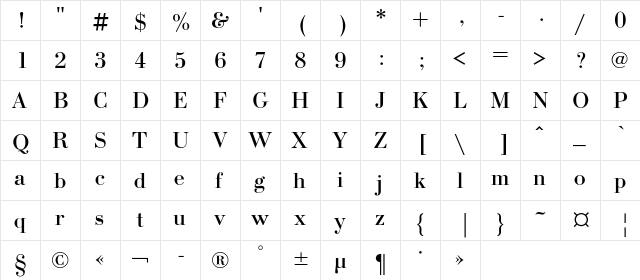
BodoniC Regular Font Preview
BodoniC Regular
BodoniC Regular Font Details
Design Context for BodoniC Typeface
BodoniC is a composed and adaptable typeface that performs quietly and consistently across a wide range of design contexts.